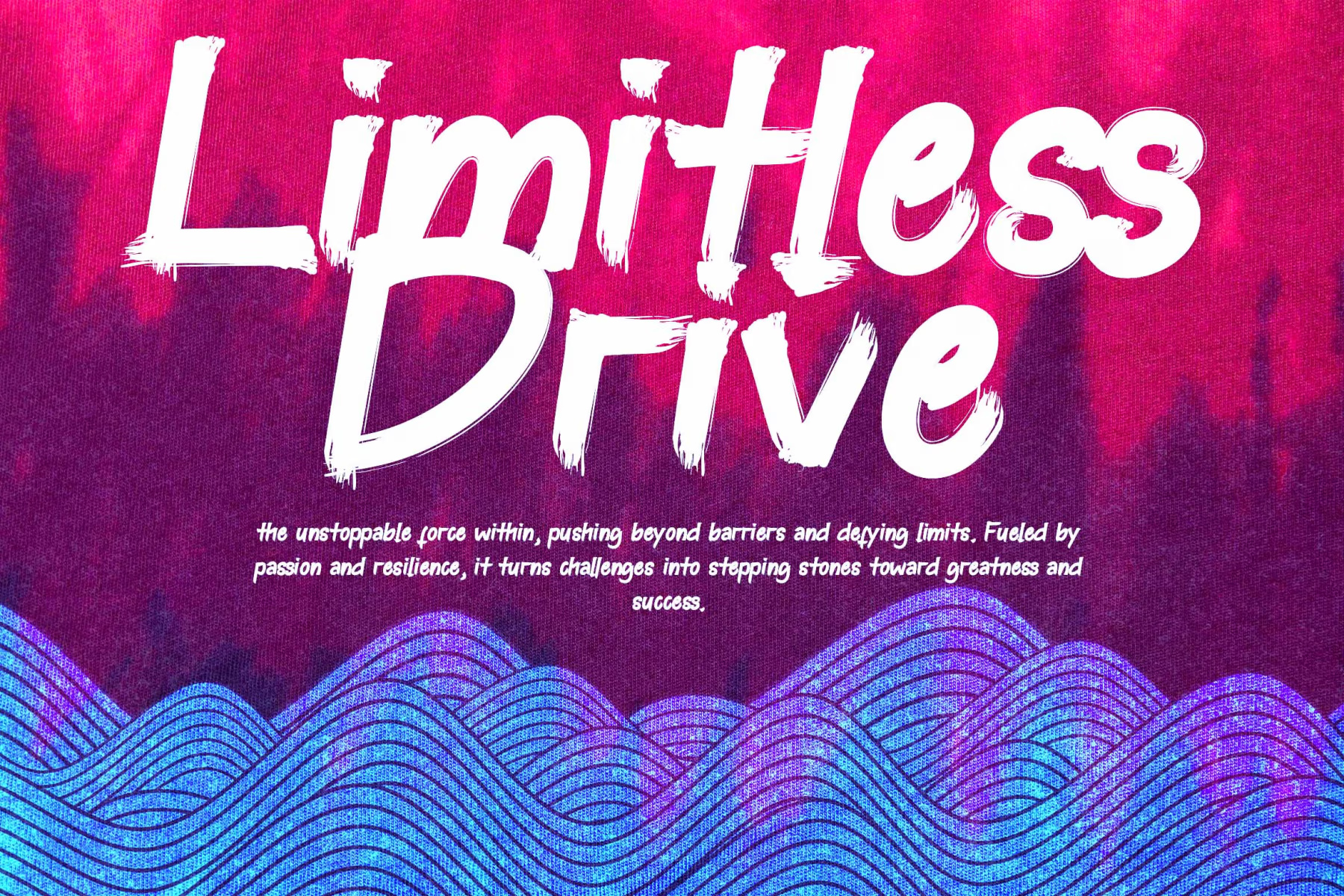
Rigretth Font
Bollymoth is a modern handwritten brush script outline font that belongs to the display typeface group. It is perfect for t-shirts, art and craft products, special occasions, or any other projects that need a friendly and expressive touch.
Rigretth Brush Script Font